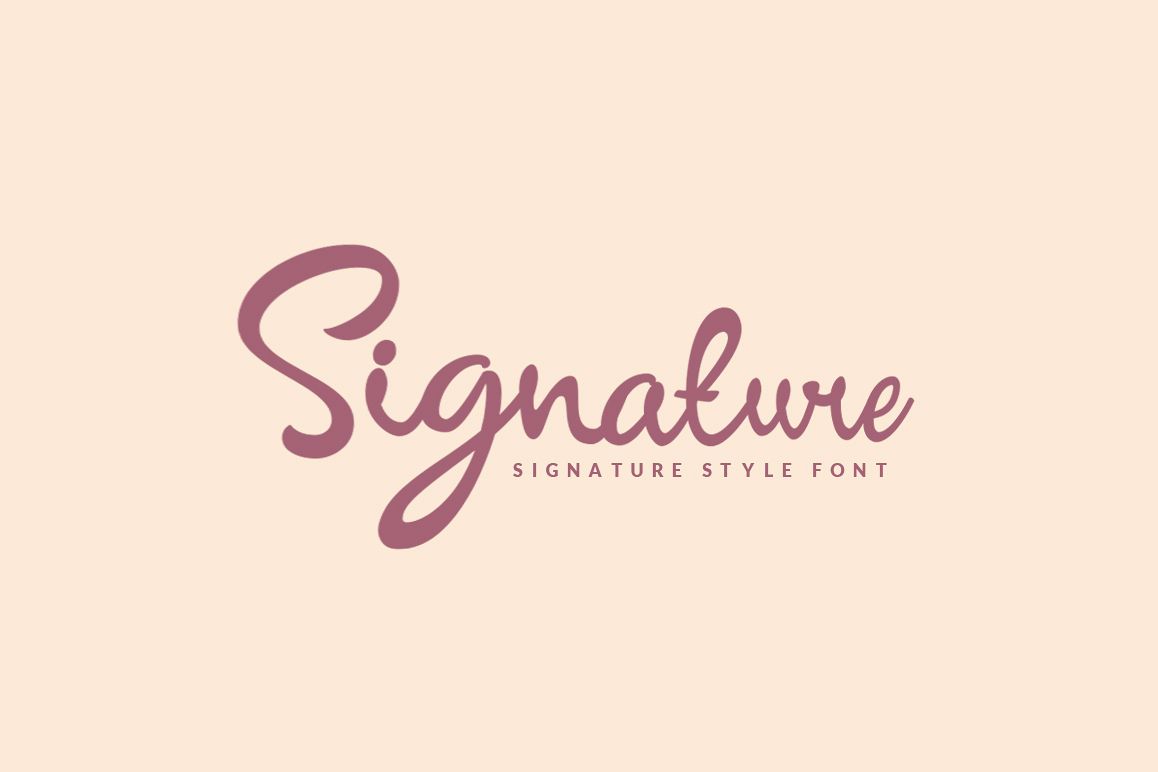
Signature - Script
Signature-Regular
Signature script is handmade signature style font with stunning characters. Ideal for logos, name tag, handwritten quotes, product packaging, merchandise, social media & greeting cards. It contains a full set of lower & uppercase letters, a large range of punctuation, numerals, and multilingual support.